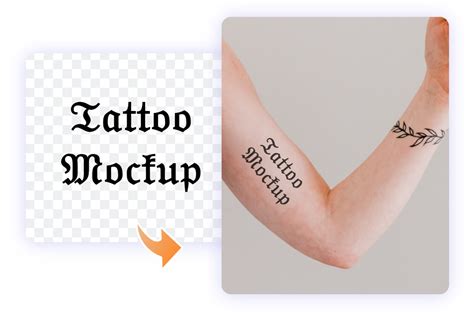
Tattoo Fonts Simulator, You can then save the image, or use the embed button. You can also set the curve, add text, image, angels and quotes as well.
Create text graphics with tattoo fonts. Choose your free tattoo design. Script font packs can be downloaded for free, or for a fee, from various sites on the internet.
Calligraphy generator, calligraphy is a visual art related to writing. Choose font + write name + choose size + go. Sceaming lucky tattoo on your wrist. As this page shows, calligraphy looks expressive and beautiful, it is widely used in wedding invitations and event invitations, and calligraphy also has a large number of enthusiasts. Cursive fonts simply emulate cursive handwriting,.
With script fonts, you can add any rendition to the letters themselves, as long as it’s still considered legible. Choose from thousands of professional tattoo designs. See previous font and image updates in the about page. Choose font + write name + choose size + go. Oni mask in a superhero costume tattoo on your upper arm.
You can then save the image, or use the embed button. Plython tattoo on your wrist. Customize your tattoo design online for free with the #1 tattoo design maker. Picking a font for your next tattoo is a very important decision. Calligraphy generator, calligraphy is a visual art related to writing.
Cursive fonts simply emulate cursive handwriting, in which letters are usually connected in a slanted and flowing manner. Go italics handwriting elegant graffiti arabic ancient. Pick the tattoo that you love! Add angels add tattoos add quotes. Download.png image make it yourself tattoo name choose.
It doesn’t get any easier than this to see what your cursive fonts for tattoos will look like in a larger size, while retaining the beauty of the font itself. With script fonts, you can add any rendition to the letters themselves, as long as it’s still considered legible. This font generator acts as a tool to preview cool font.
However, for different languages, cursive writing can mean differently, for example, for eastern asian languages like chinese, cursive writing focuses more on the formation and connectedness of strokes within an individual character while for latin,. As you’ll see, the enlargement shows up “distortion free”. Create text graphics with tattoo fonts. Cat on a mountain tattoo on the back of your.
Build your custom tattoo from our hundreds of tattoo lettering fonts. Fonts based on the lettering popular on tattoos. Add angels add tattoos add quotes. Choose from 1000's of free tattoo design templates that you can edit yourself online for free. Design tattoos according to your customer's needs.
Design tattoos according to your customer's needs. It converts a normal text to different free cool fonts styles, such as tattoo fonts, calligraphy fonts, web script fonts, cursive fonts, handwriting fonts, old english fonts, word fonts, pretty fonts,. Click go and wait 6. Build your custom tattoo from our hundreds of tattoo lettering fonts. As this page shows, calligraphy looks.